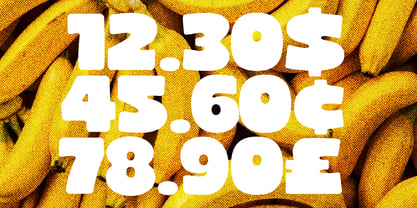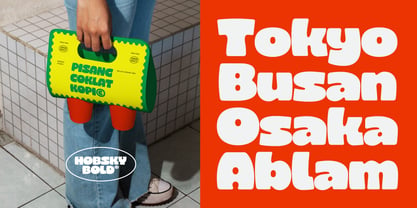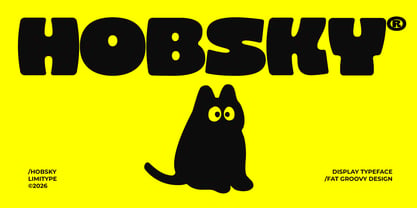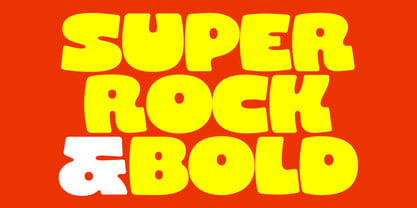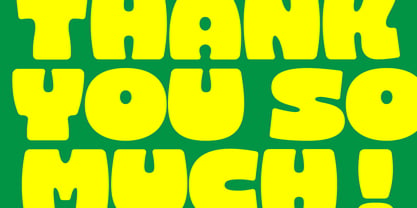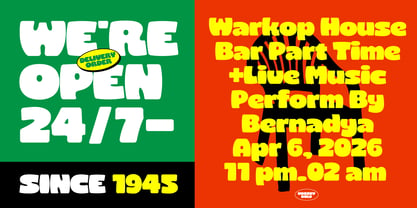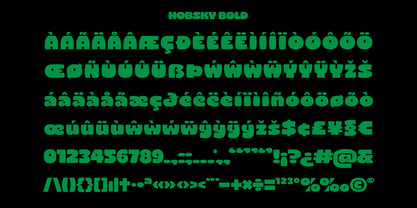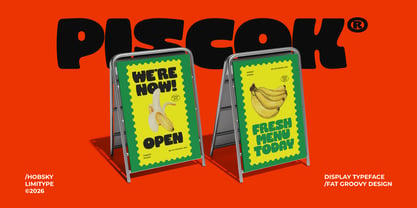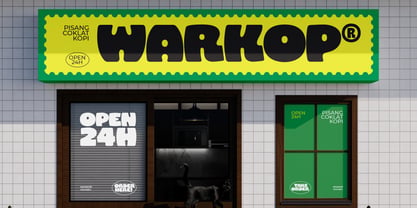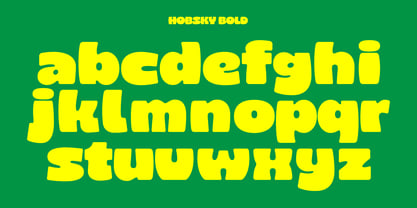
Hobsky
by limitype
The Hobsky Font Family was designed by Muhammad Muammar, Furqan Sudirman and published by limitype. Hobsky contains 1 styles. More about this family
Hobsky is a bold display font that brings a groovy and playful energy into every design. Its chunky forms and lively curves create a fun yet striking visual presence, making it perfect for branding, posters, packaging, and creative headlines. Designed to stand out, Hobsky delivers a retro inspired vibe with a modern twist, ideal for projects that demand attention and personality. Hobsky available with: Uppercase Lowercase Number Symbol Multilingual
Designers: Muhammad Muammar, Furqan Sudirman
Foundry: limitype